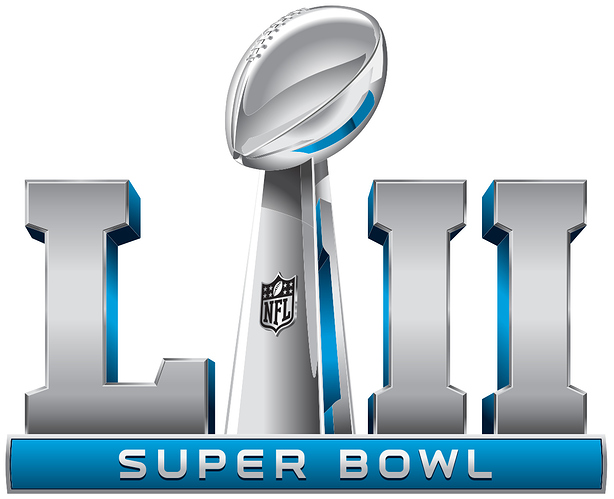
Name the font of the Super Bowl LII letters?
Here are a few candidates. There are small variations in all of them, but they are very close:
https://www.myfonts.com/fonts/type-together/lft-etica-sheriff/compressed-bold/glyphs.html#glyphs/726443/42
https://www.myfonts.com/fonts/behaviour/martini/extra-bold/glyphs.html#glyphs/641821/44
https://www.myfonts.com/fonts/outras/directa-serif/bold/glyphs.html#glyphs/573179/31
https://www.myfonts.com/fonts/linotype/mantika-news/extrabold-display/glyphs.html#index
https://www.myfonts.com/fonts/fontfont/unit-slab/pro-black/glyphs.html#index